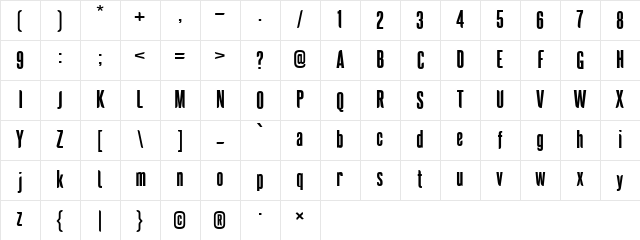
Saridona Regular
Foundry: Yayan Anugrawan
Designer: Yayan Anugrawan
Design Context for Saridona
Saridona is a composed and adaptable typeface that performs quietly and consistently across a wide range of design contexts.
Pro Tip: Use Saridona in both headline and body roles to test its range before committing to a single application.
Who designed the Saridona Regular font?